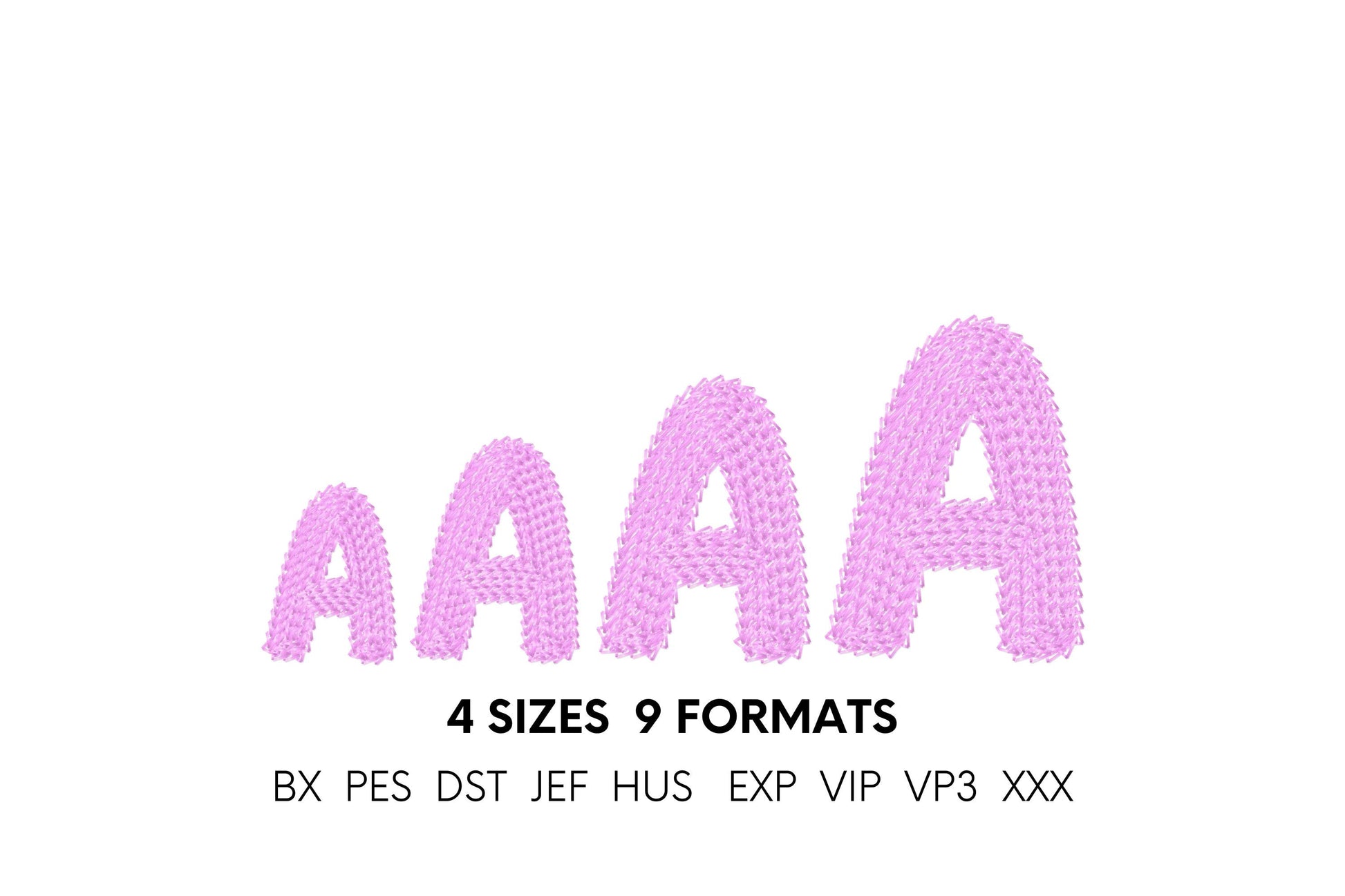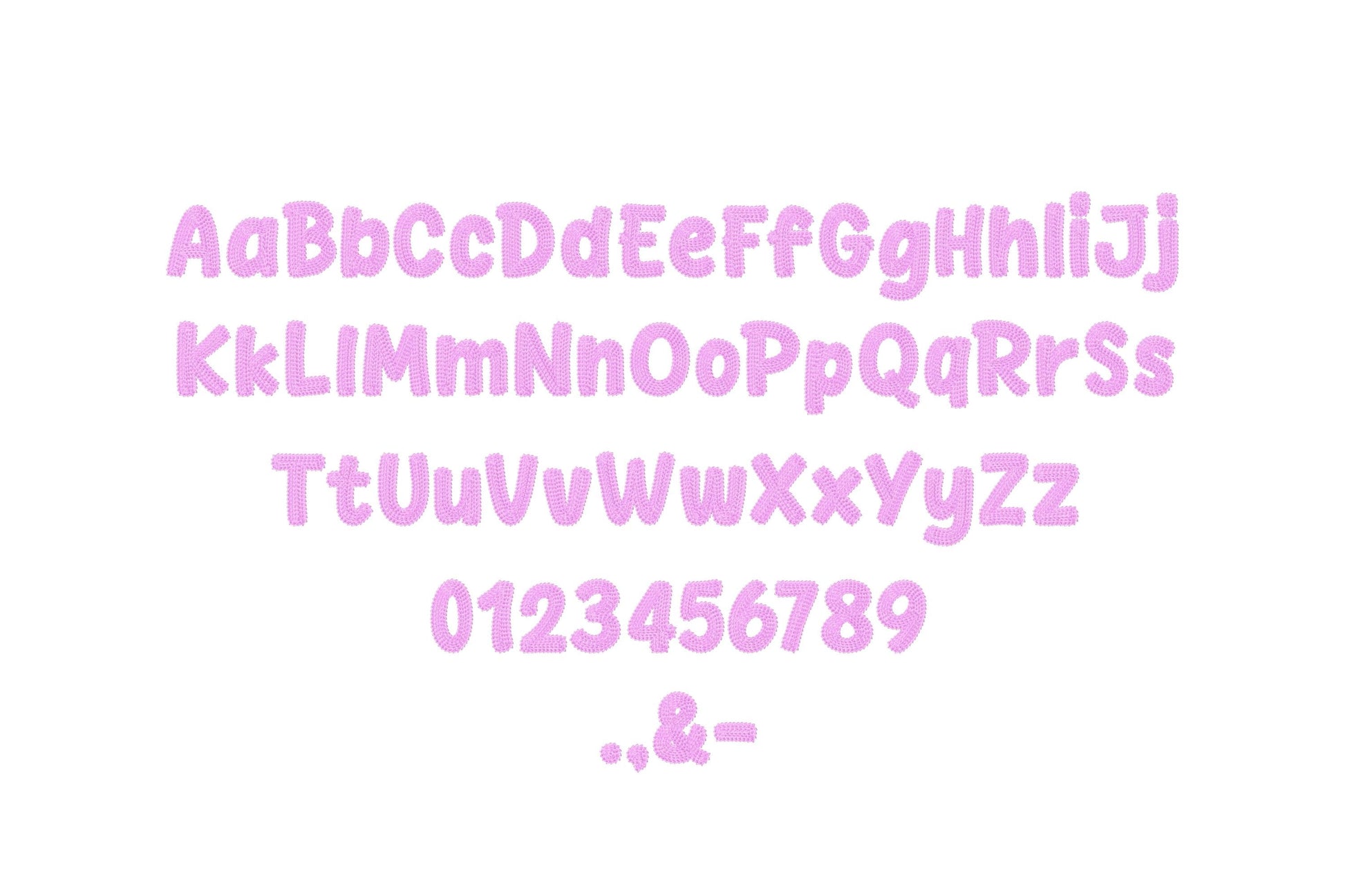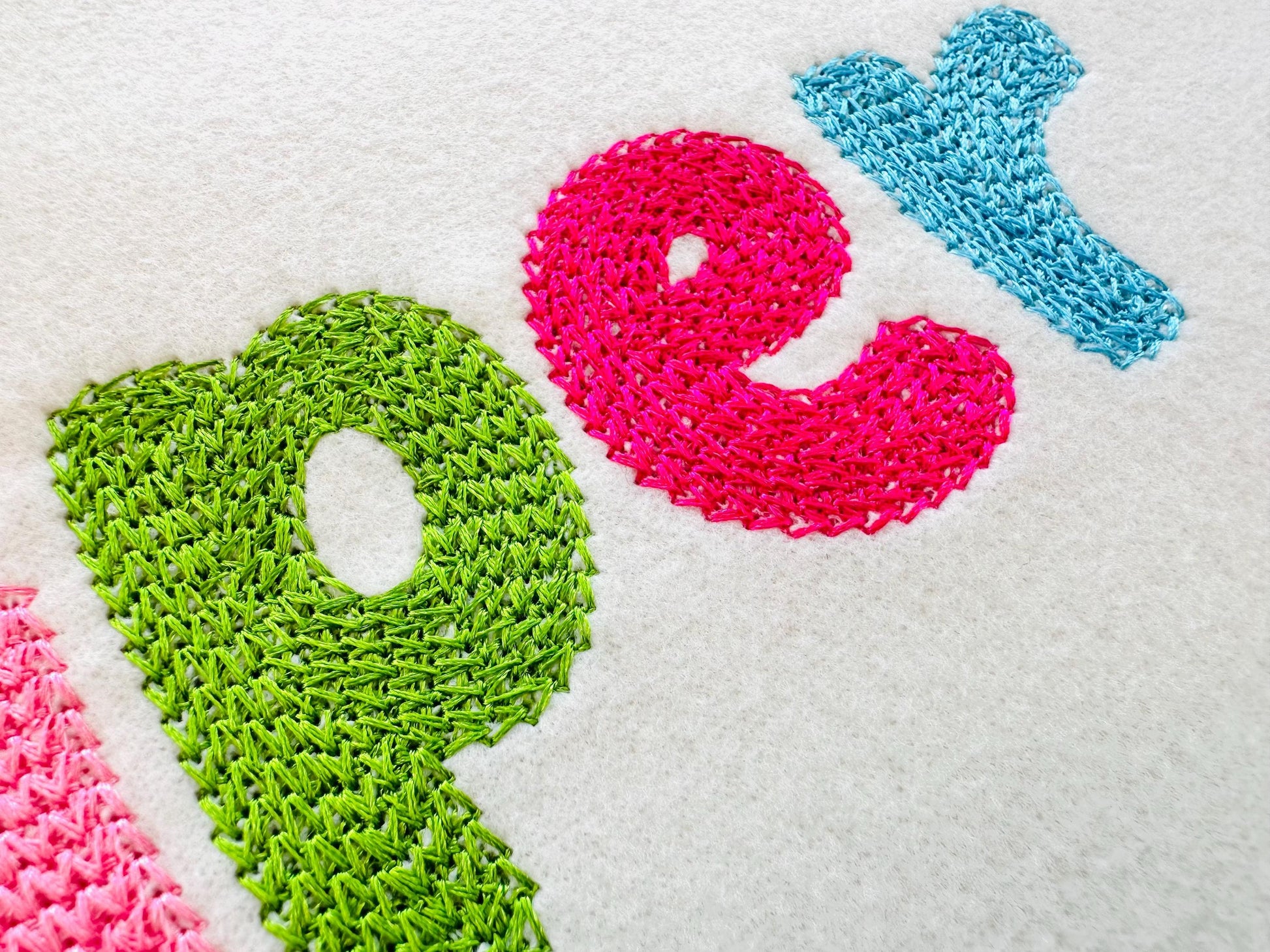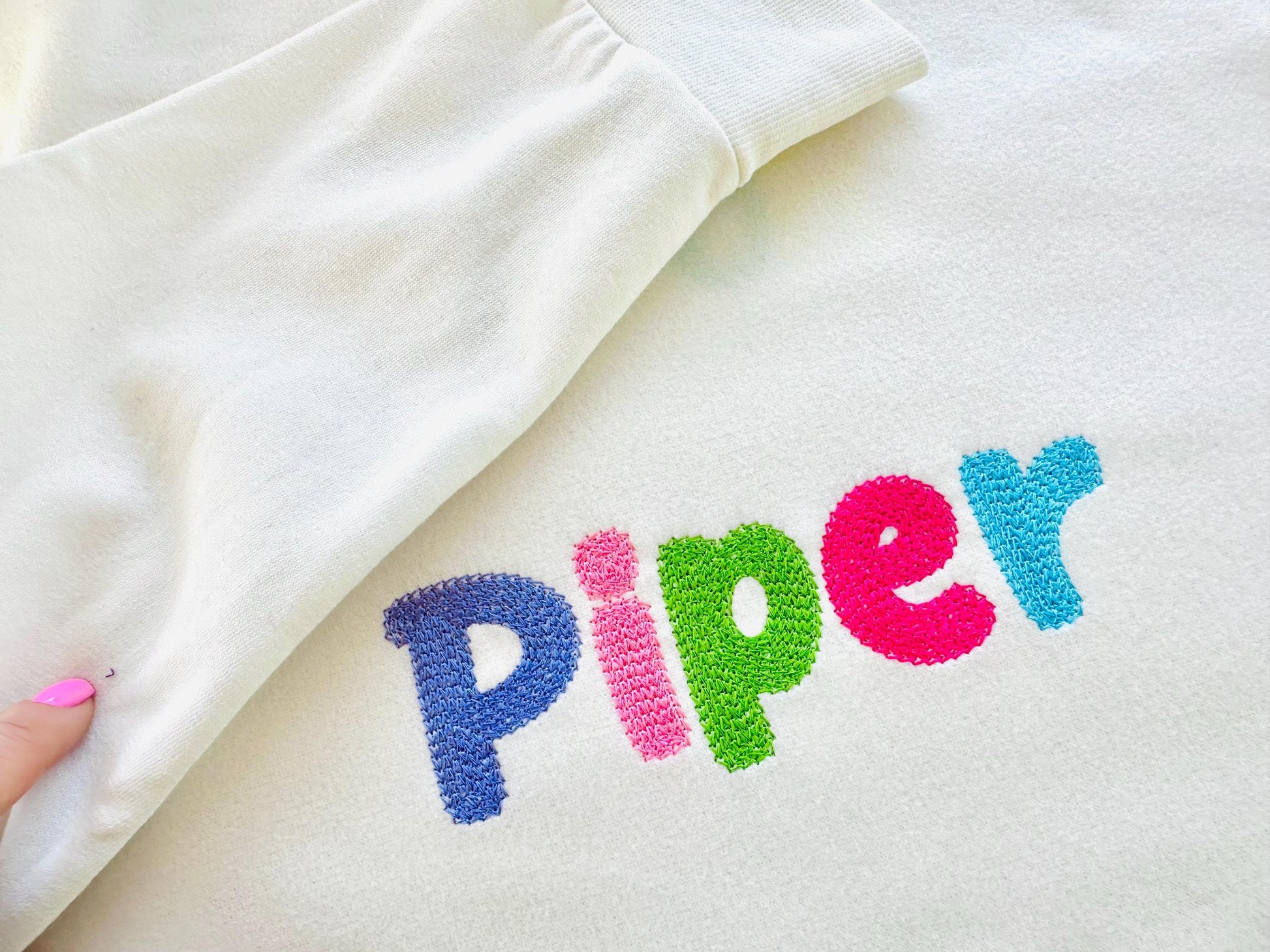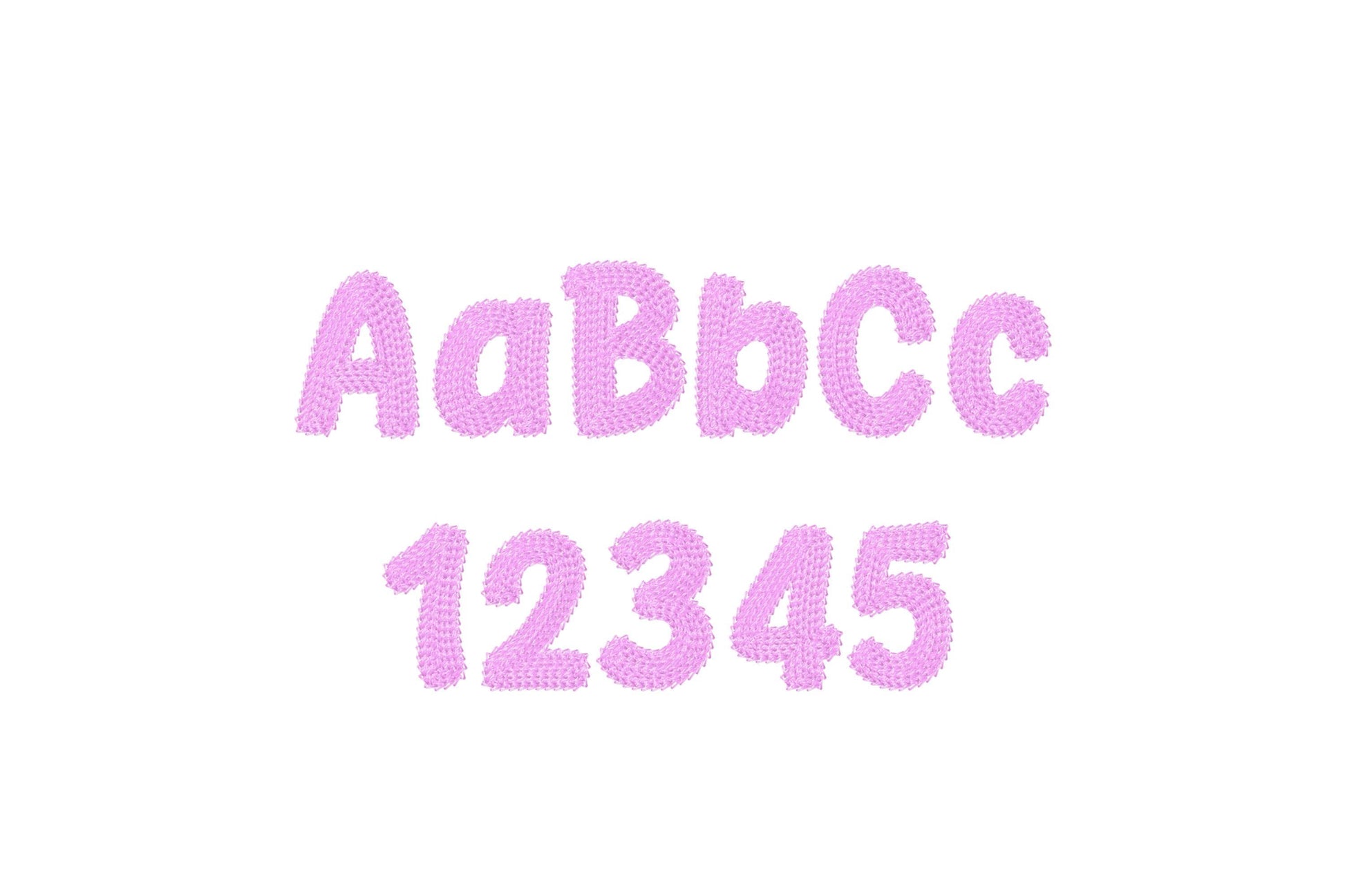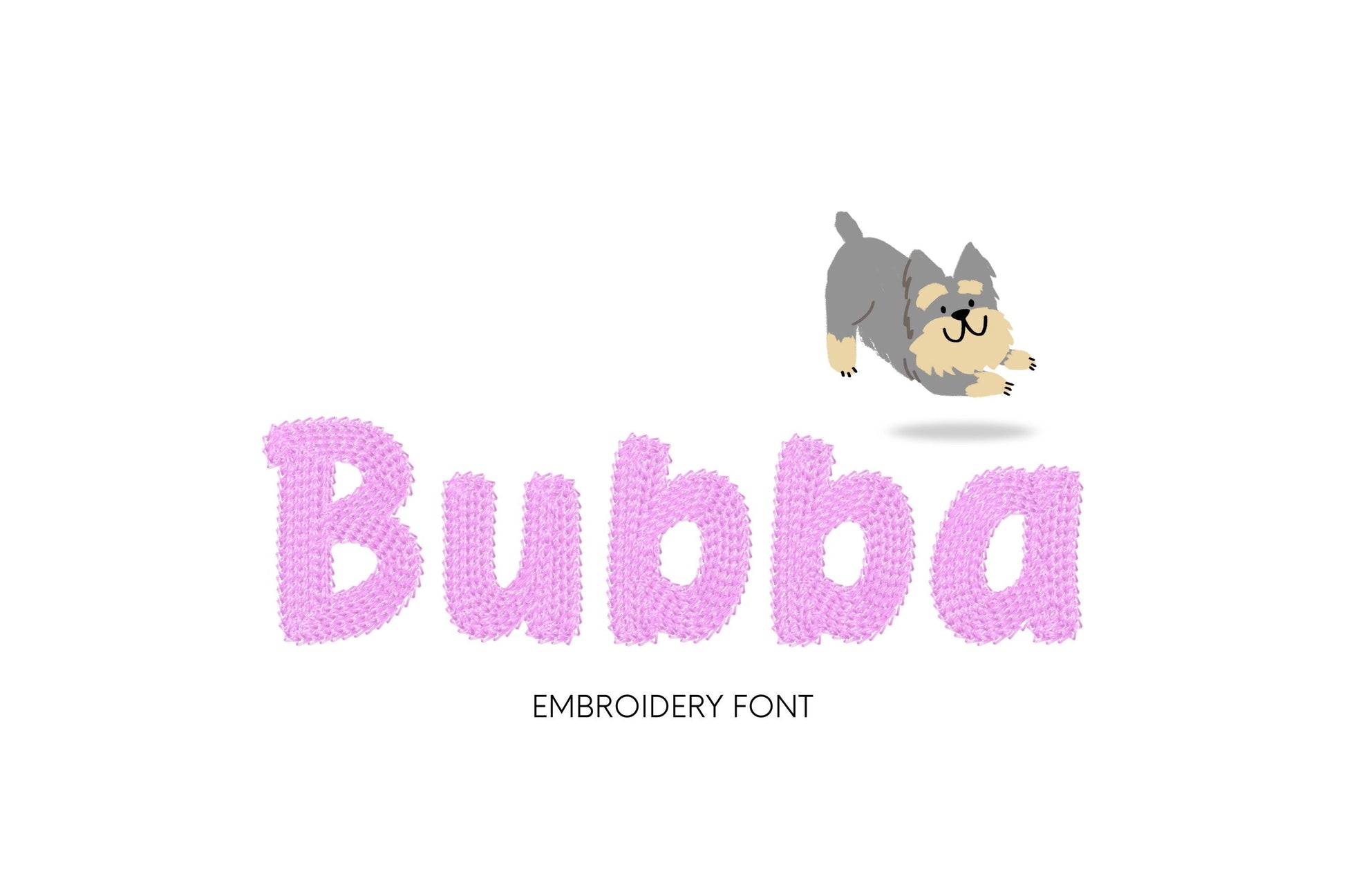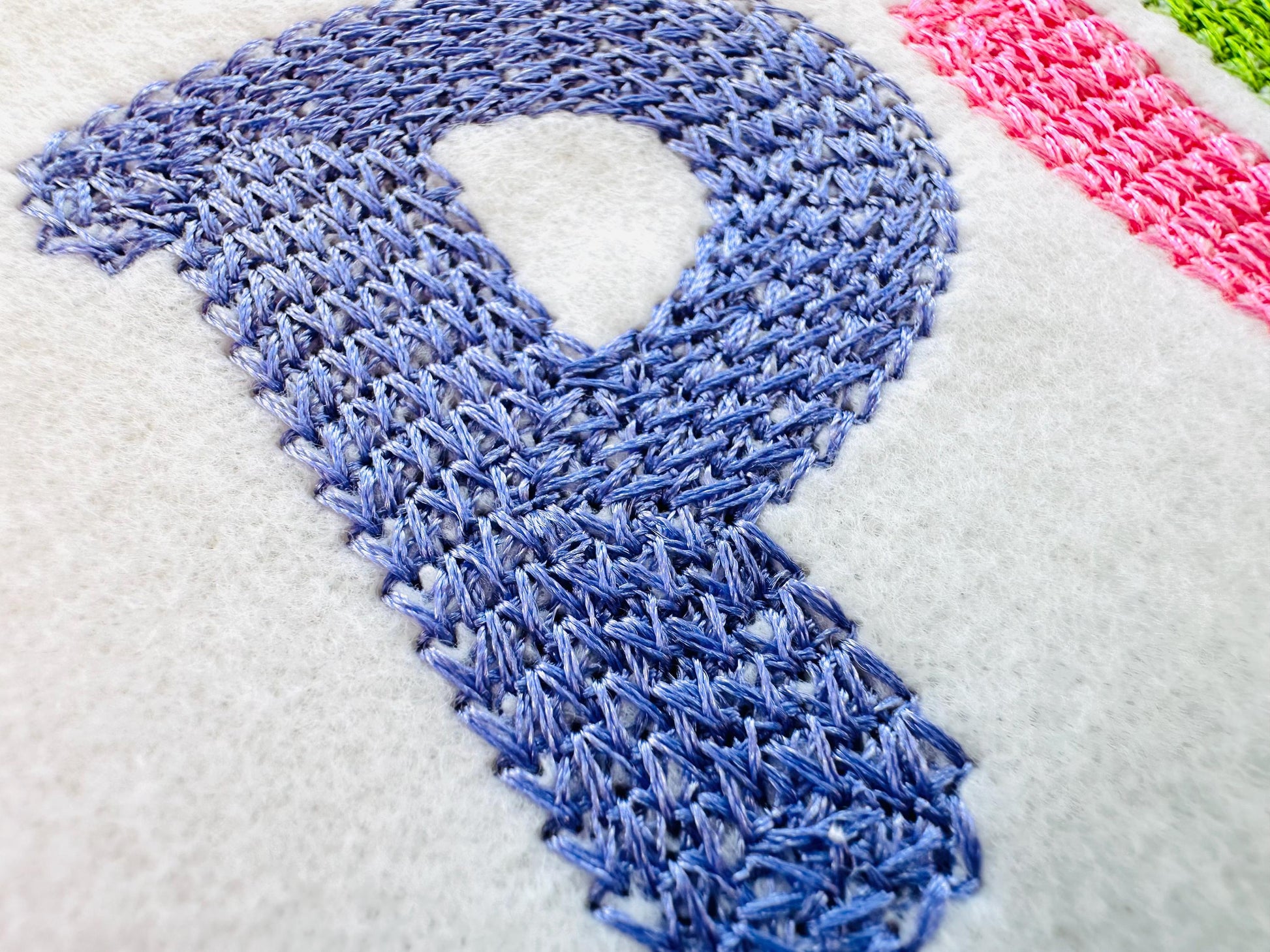
Small Light Fill Chain Font Fill hand stitch effect
Included: Uppercase A-Z, Lowercase a-z, Numbers 0-9, Punctuation
A small block font filled with light chain stitch for a hand-embroidered look. Lovely for names and short words on sweatshirts, bags and gifts.
Uppercase and lowercase letters, numbers 0 to 9 and a few punctuation marks, in four sizes: 1.4, 1.8, 2.2 and 2.7 inches. Light chain fill with a hand-stitched feel.
• Light chain fill block font
• Uppercase, lowercase, numbers 0 to 9, punctuation
• 4 sizes: 1.4, 1.8, 2.2 and 2.7 in